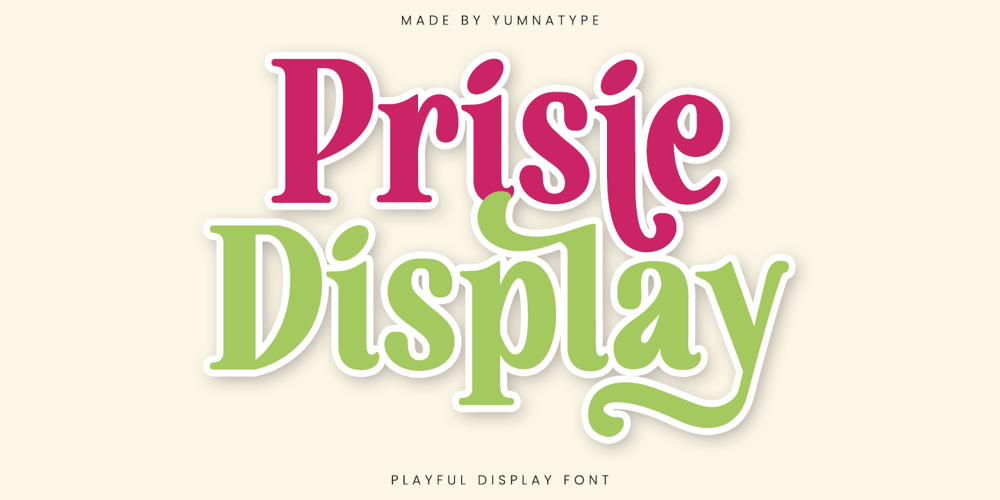
Prisie Display Font Family was designed by Donis Miftahudin and published by Yumna Type. Prisie Display contains 1 styles and family package options. Prisie Display is a charming and playful display font designed to infuse your projects with a sense of fun and creativity. With its rounded shapes and consistent letter proportions, this font offers a harmonious and approachable look that stands out beautifully in any design.The playful style of Prisie Display is complemented by a quite visible contrast, adding depth and visual interest to each character. This contrast enhances readability while maintaining a whimsical and engaging aesthetic. In addition, enjoy the features here.Features: Ligatures Stylistic Sets Multilingual Supports PUA Encoded Numerals and Punctuations Prisie Display fits in headlines, logos, posters, flyers, branding materials, print media, editorial layouts, and many more designs. Find out more ways to use this font by taking a look at the font preview.Thanks for purchasing our fonts. Hopefully, you have a great time using our font. Feel free to contact us anytime for further information or when you have trouble with the font. Thanks a lot and happy designing.